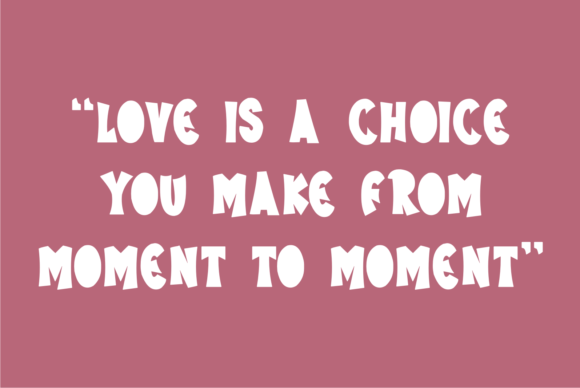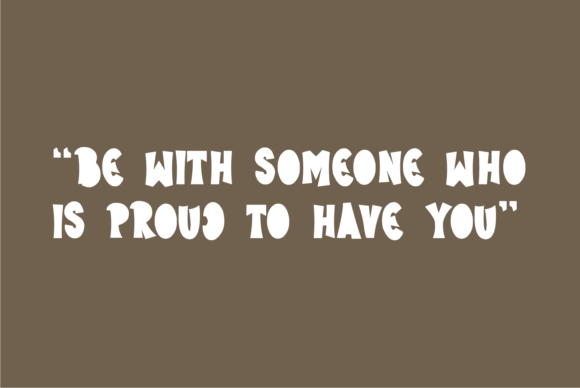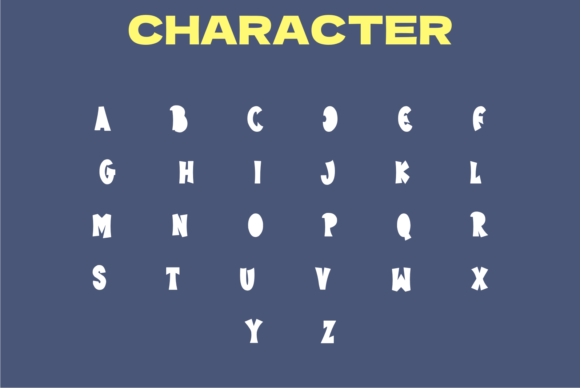
Introduction to Lupa Coffee Font
You know that moment when you’re in the middle of a creative project and you’re struggling to find the perfect design element to tie everything together? The frustration is real, but the excitement of finally discovering that elusive piece is even greater. For designers, finding the right font can make all the difference between a project that’s just okay and one that’s truly exceptional.
That’s where the Lupa Coffee Font comes in – a stunning, thick-lettered display font that’s guaranteed to add a touch of sophistication and style to any design. With its simple yet powerful design, this font is a game-changer for designers looking to elevate their creative projects.
Not only is the Lupa Coffee Font a valuable resource for designers, but it’s also incredibly easy to use. Whether you’re working on a project with a transparent background or need a high-quality font to stand out from the crowd, this font has got you covered.
Key Features of Lupa Coffee Font
- High-quality, unique design for creative projects, ideal for use as a design resource.
- Designed with a modern aesthetic, making it perfect for coffee shop branding, advertising, and other related creative projects.
- Includes multiple font styles, including bold and regular, to cater to different design needs.
- Perfect for designers, artists, and small business owners looking for a high-quality, free design resource.
Honest Review: Lupa Coffee Font
As a designer, I’m always on the lookout for unique and high-quality design resources. The Lupa Coffee Font caught my eye with its quirky and modern aesthetic, making it a great addition to any creative project.
- ✨ High-quality design that’s perfect for a coffee shop or cafe branding project.
- ✨ Transparent background option, allowing for seamless integration with any background image or color.
- ⚠️ Limited character set, which may not be ideal for longer text-based projects.
- ⚠️ Some users may find the font’s bold and playful style to be too overwhelming or distracting.
Overall, I’m impressed with the Lupa Coffee Font and think it’s a great design resource for designers looking for a unique and modern aesthetic. While it may have some limitations, its high-quality design and transparent background make it a valuable addition to any creative project.
Lupa Coffee Font
Use Lupa Coffee Font to add a creative touch to your design projects. This high-quality font is perfect for designers looking for a unique and stylish design resource. To get the most out of it, experiment with different font sizes, colors, and styles to match your design needs.
Lupa Coffee Font is ideal for a variety of creative projects, including logos, business cards, and marketing materials. Its transparent background makes it perfect for overlaying on top of other design elements, allowing for a seamless and professional design.